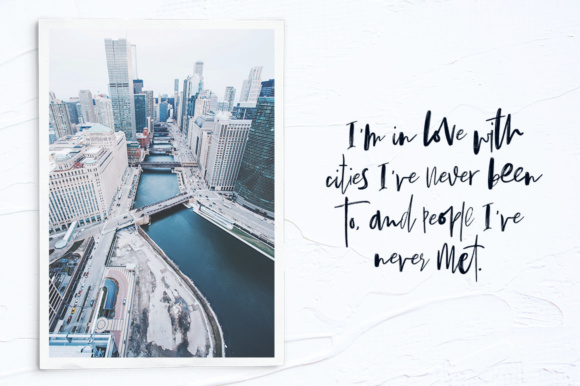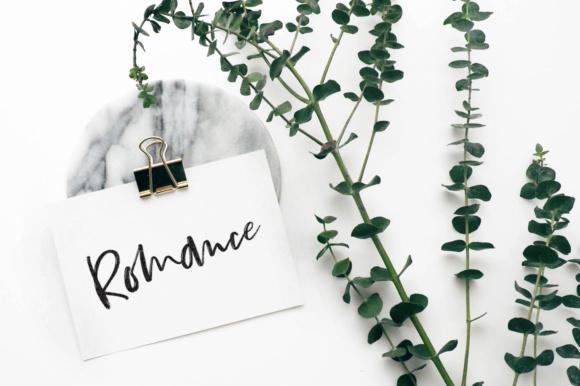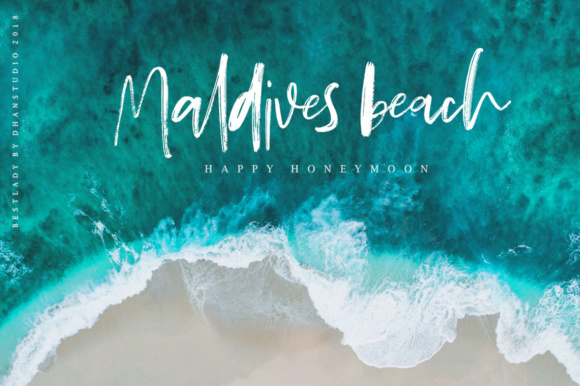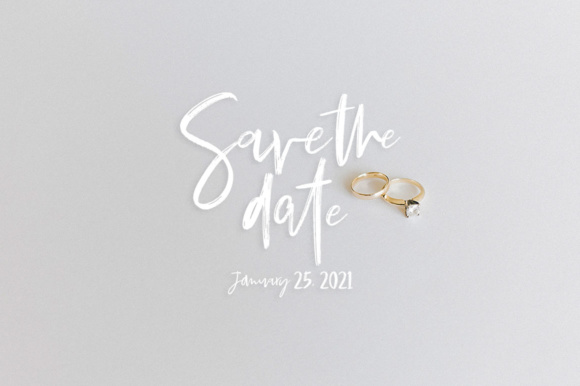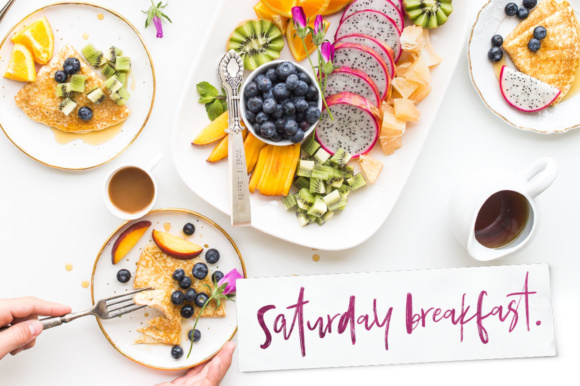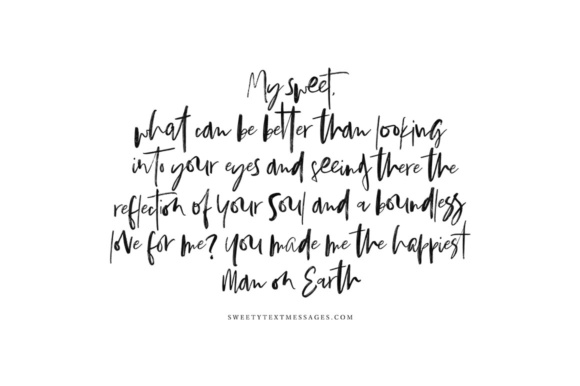
The Quest for the Perfect Font: Discovering Bestlady
I’ll never forget the time I was working on a project for a client who wanted a romantic, whimsical feel. I had spent hours scouring the internet for the perfect font, but nothing seemed quite right. That was until I stumbled upon Bestlady, a romantic textured brush font that has since become a staple in my design toolkit.
A Personal Review of Bestlady
So, what makes Bestlady so special? Let’s dive in and take a closer look.
What I Love About Bestlady
- ✨ Unique Texture: Bestlady has a beautiful, rustic texture that adds a touch of warmth and personality to any design.
- ✅ Highly Versatile: Whether you’re working on a wedding invitation, a branding project, or a social media graphic, Bestlady can adapt to any style or theme.
- 💫 OpenType Features: This font comes with a range of OpenType features, including stylistic alternates, glyphs, and ligatures, giving you plenty of creative options.
While Bestlady is an amazing font, it’s not without its quirks. Here are a few things to keep in mind:
- 🤔 Legibility at Small Sizes: Bestlady can be a bit tricky to read at very small sizes, so make sure to test it out before committing to a specific size.
- ⚠️ Limited Formality: Due to its textured, brush-like quality, Bestlady may not be the best choice for very formal or corporate designs.
The Story Behind Bestlady
While the true story behind Bestlady may be a mystery, it’s easy to imagine a designer sitting in a cozy coffee shop, sipping on a latte and sketching out font ideas in a notebook. Perhaps the designer was inspired by the rustic charm of handwritten letters and the romance of vintage typography. Whatever the story, Bestlady is a true gem that deserves to be celebrated.
Q: What makes Bestlady so special?
A: Bestlady’s unique texture, versatility, and OpenType features make it a standout font that’s perfect for a wide range of design projects.
Q: Is Bestlady suitable for formal designs?
A: While Bestlady is an amazing font, it may not be the best choice for very formal or corporate designs due to its textured, brush-like quality.